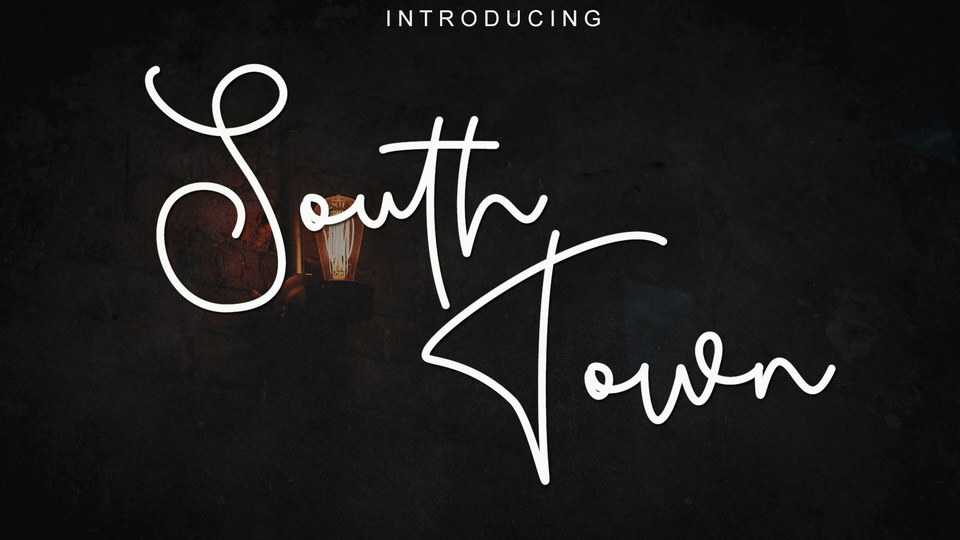
Download South Town font, a casual monoline script typeface. South Town has flowing letters that will give your designs a unique and sweet look.
Designer: Letterafa Studio